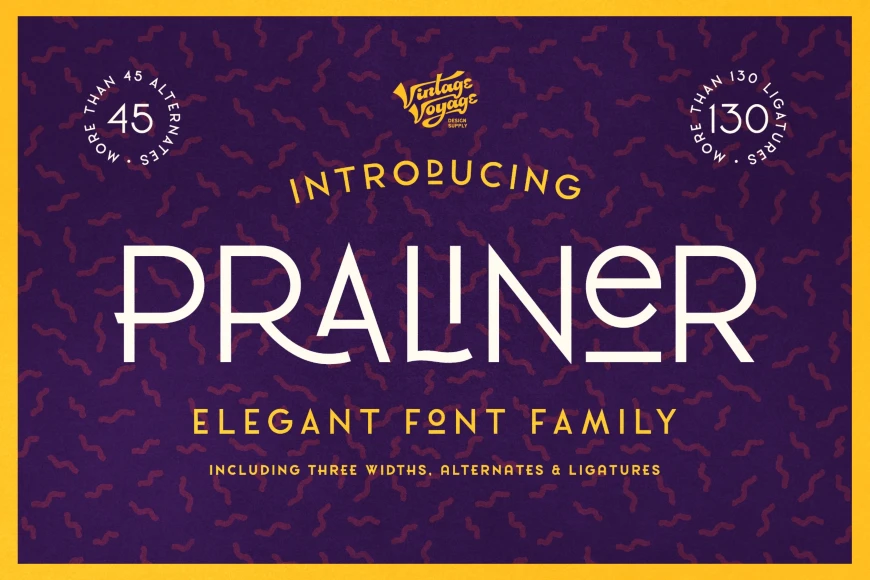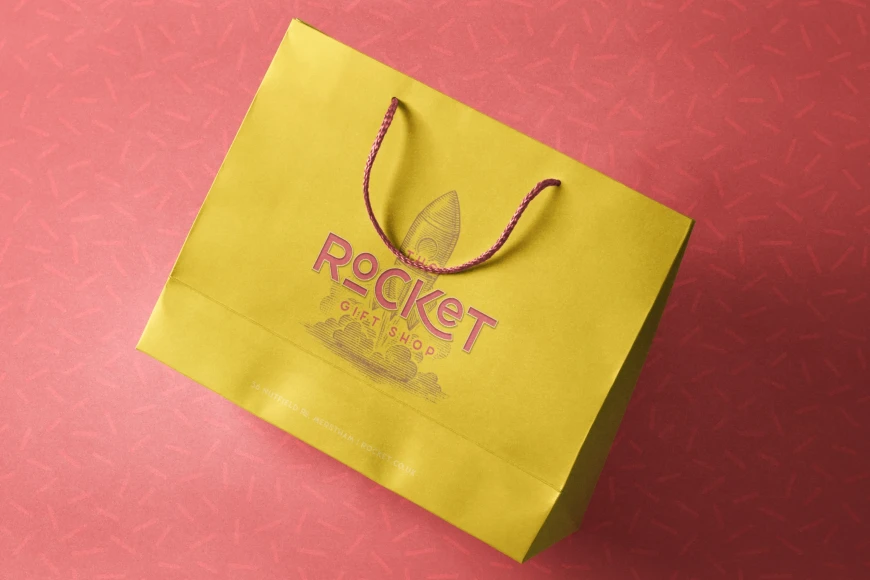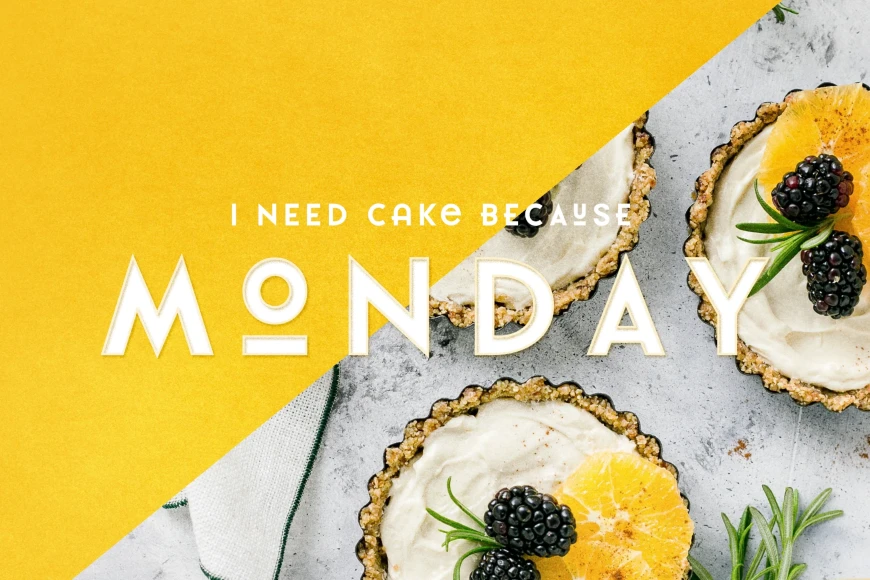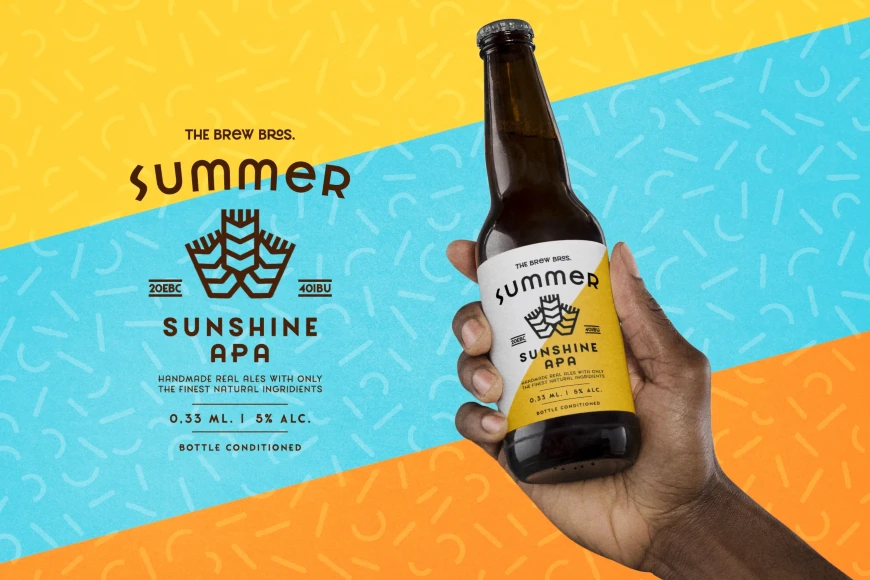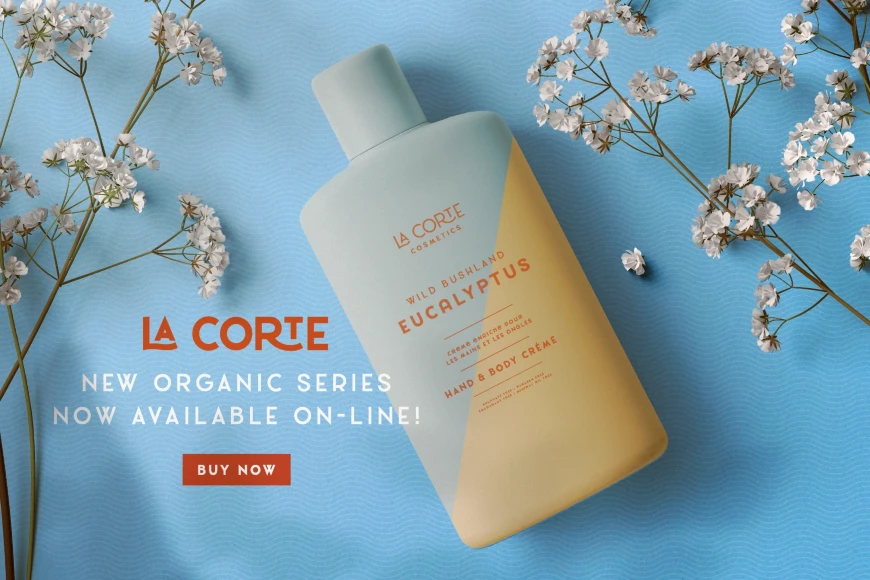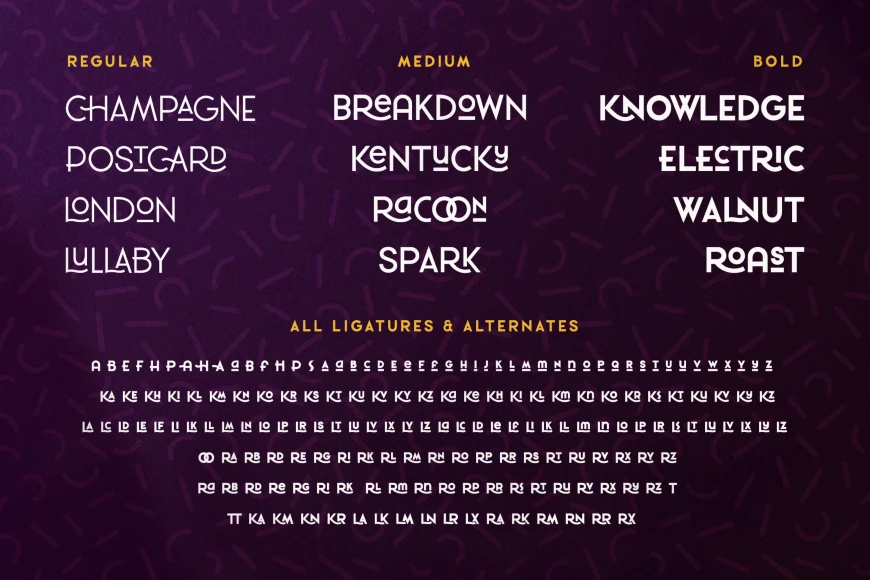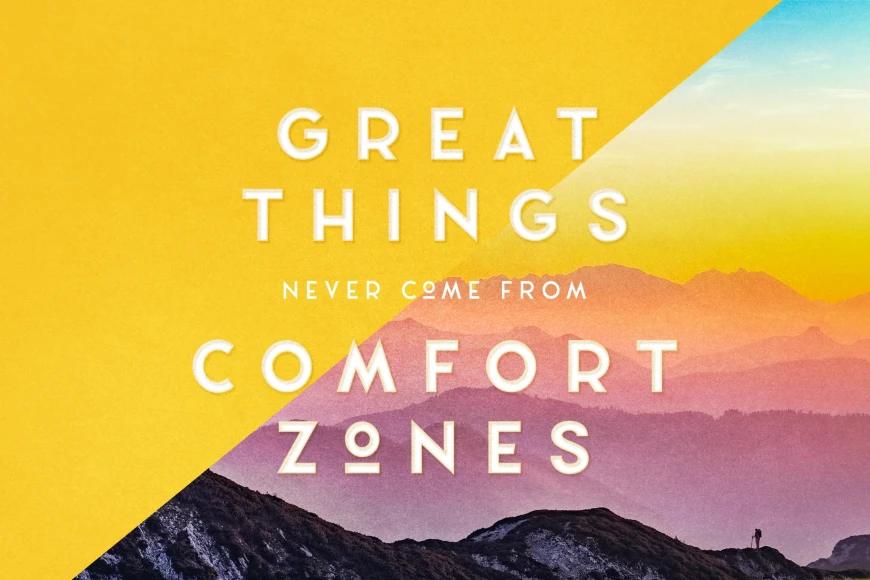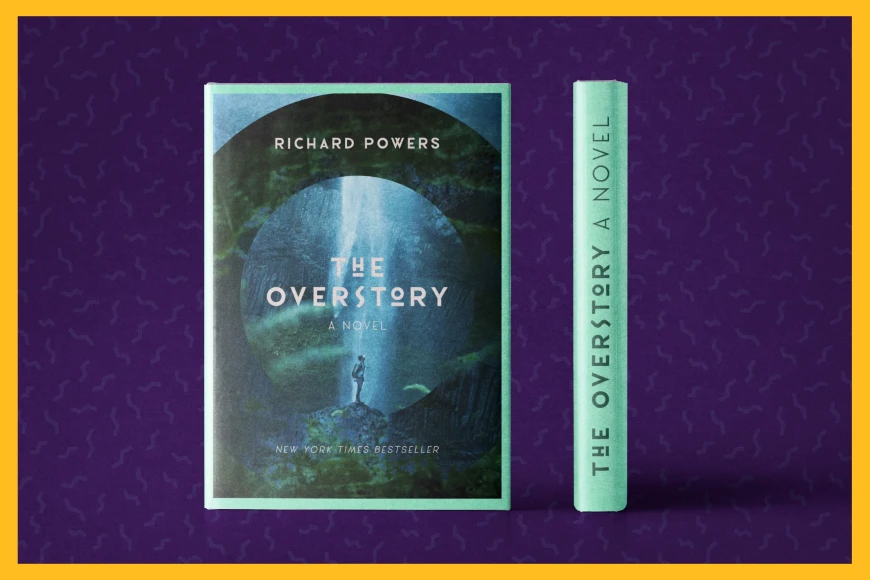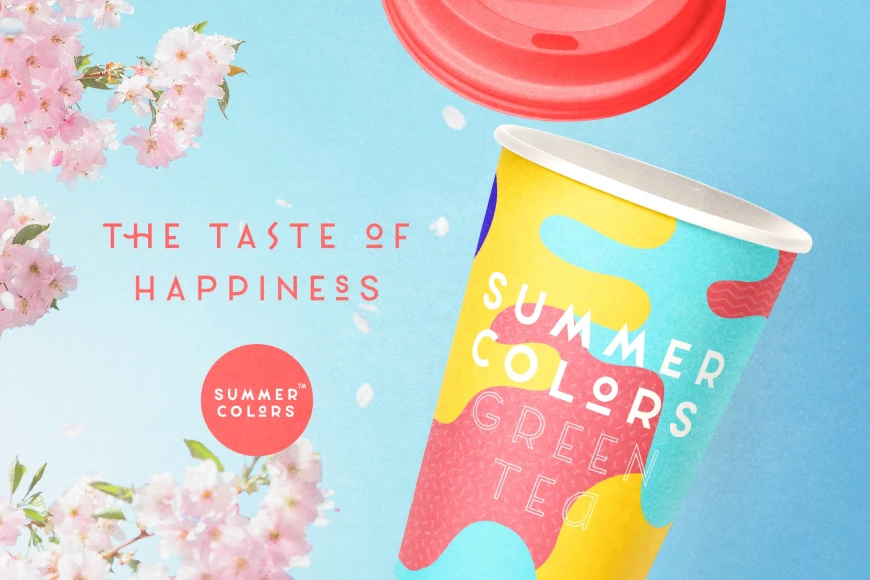
Praliner
From Vintage Voyage Design
Praliner is an elegant font family designed with style and flexibility in mind. Features a wide range of alternates and ligatures for creating unique wordforms. Includes three widths with stroke styles, offering options for both modern and vintage design. Ideal for branding, packaging, headers, posters, and signage. Works beautifully with shadowed strokes for added depth and character. Combines uppercase and lowercase initials for a playful, sophisticated look. Made to bring variety and charm to any typographic project.
Praliner Regular
Praliner Stroke
Praliner Medium
Praliner Stroke Medium
Praliner Bold
Praliner Stroke Bold